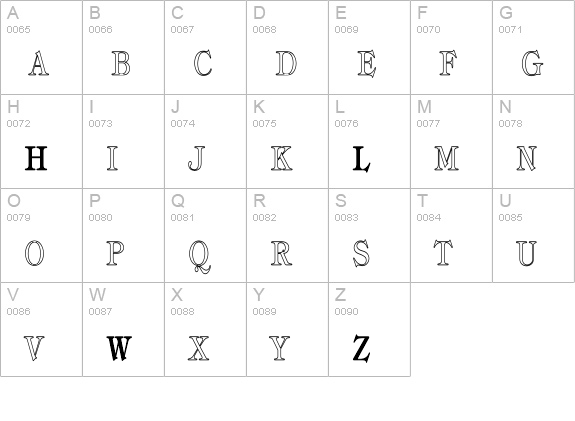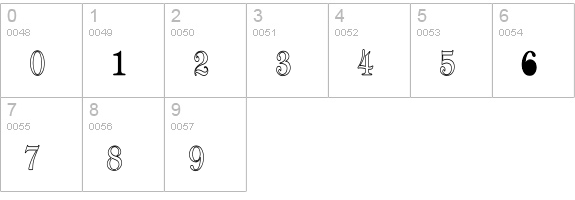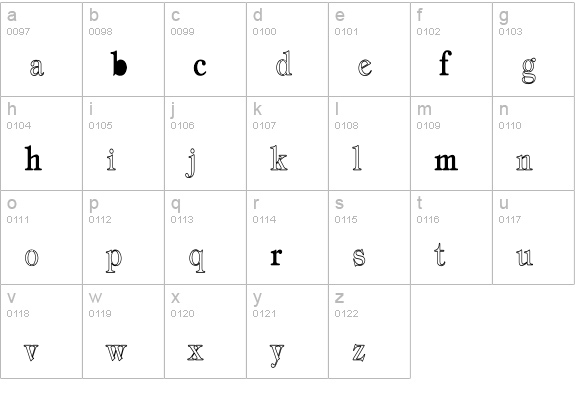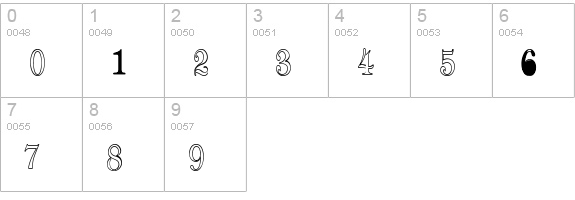
Tiffany-ThinHC font is a sleek and elegant typeface that exudes sophistication and refinement. With its slender and delicate letterforms, this font effortlessly captures attention and adds a touch of class to any design project. Crafted with utmost precision and attention to detail, Tiffany-ThinHC font strikes the perfect balance between modernity and timelessness. Its thin strokes and graceful curves make it ideal for various applications, from branding and packaging to editorial design and advertising. What sets Tiffany-ThinHC font apart is not just its impeccable design, but also its availability to everyone free of charge. Yes, you heard it right! This stunning font can be freely downloaded at FontsMarket.com, allowing designers and typographers to explore its beauty and unleash their creativity without any financial constraints. Whether you're a professional designer or a passionate enthusiast, Tiffany-ThinHC font is an invaluable addition to your font library. Its versatility and elegance make it a perfect choice for a wide range of projects, including logos, headlines, invitations, and more. The ability to freely access and use this font ensures that creativity knows no boundaries. So why wait? Head over to FontsMarket.com now and indulge in the beauty of Tiffany-ThinHC font. Discover its endless possibilities and let it elevate your designs to new heights. With its timeless appeal and the added bonus of being free, this font is a must-have for any design aficionado.